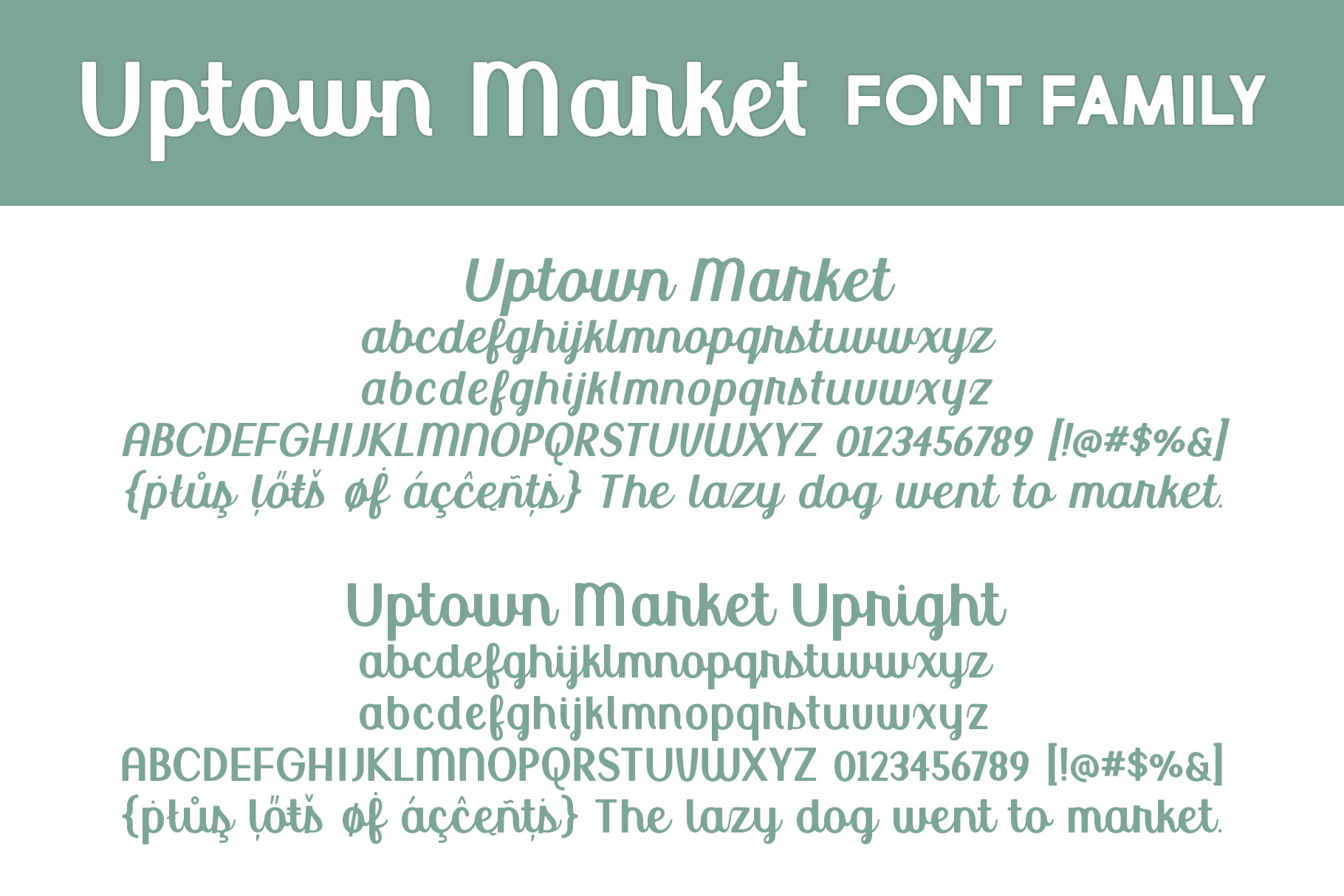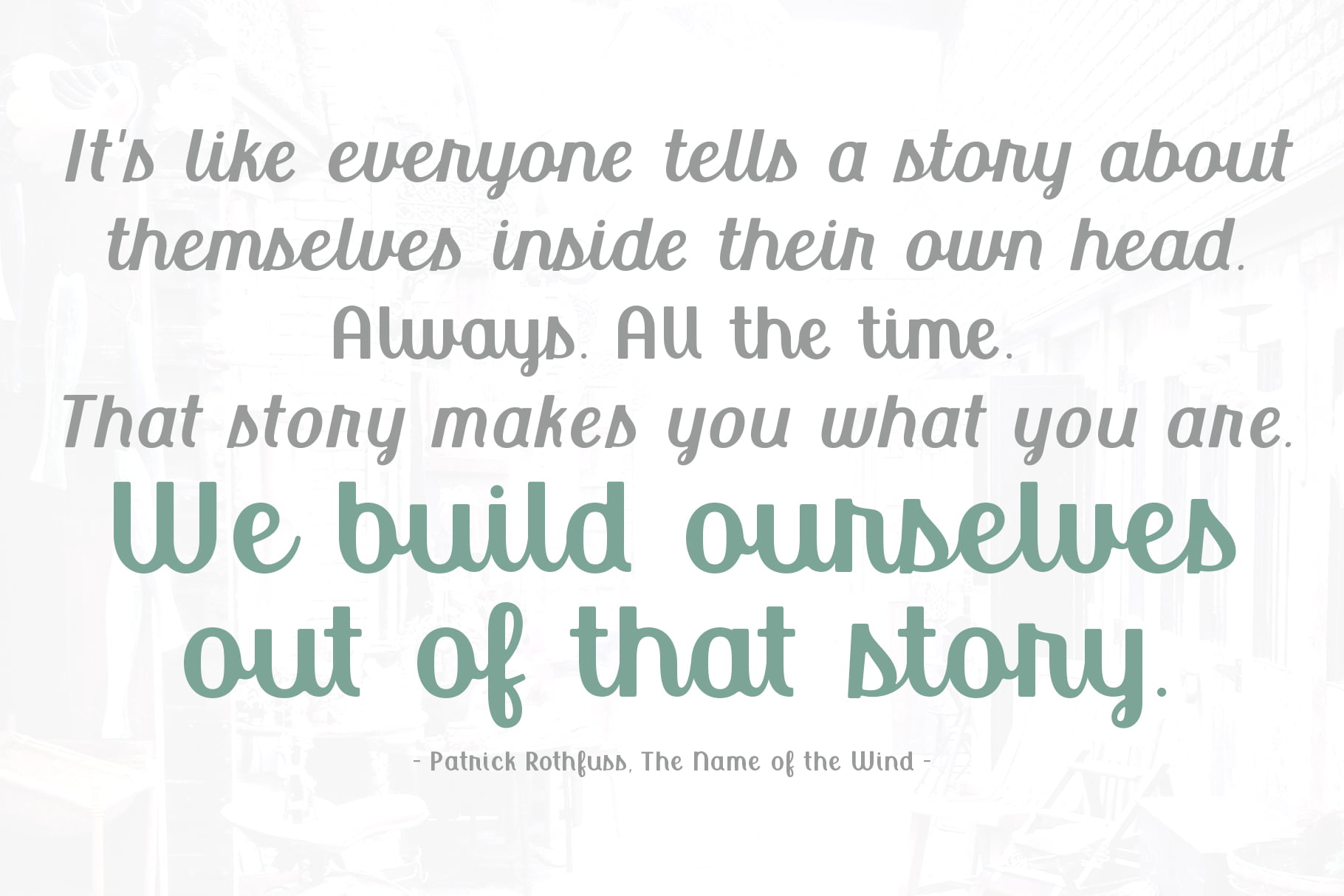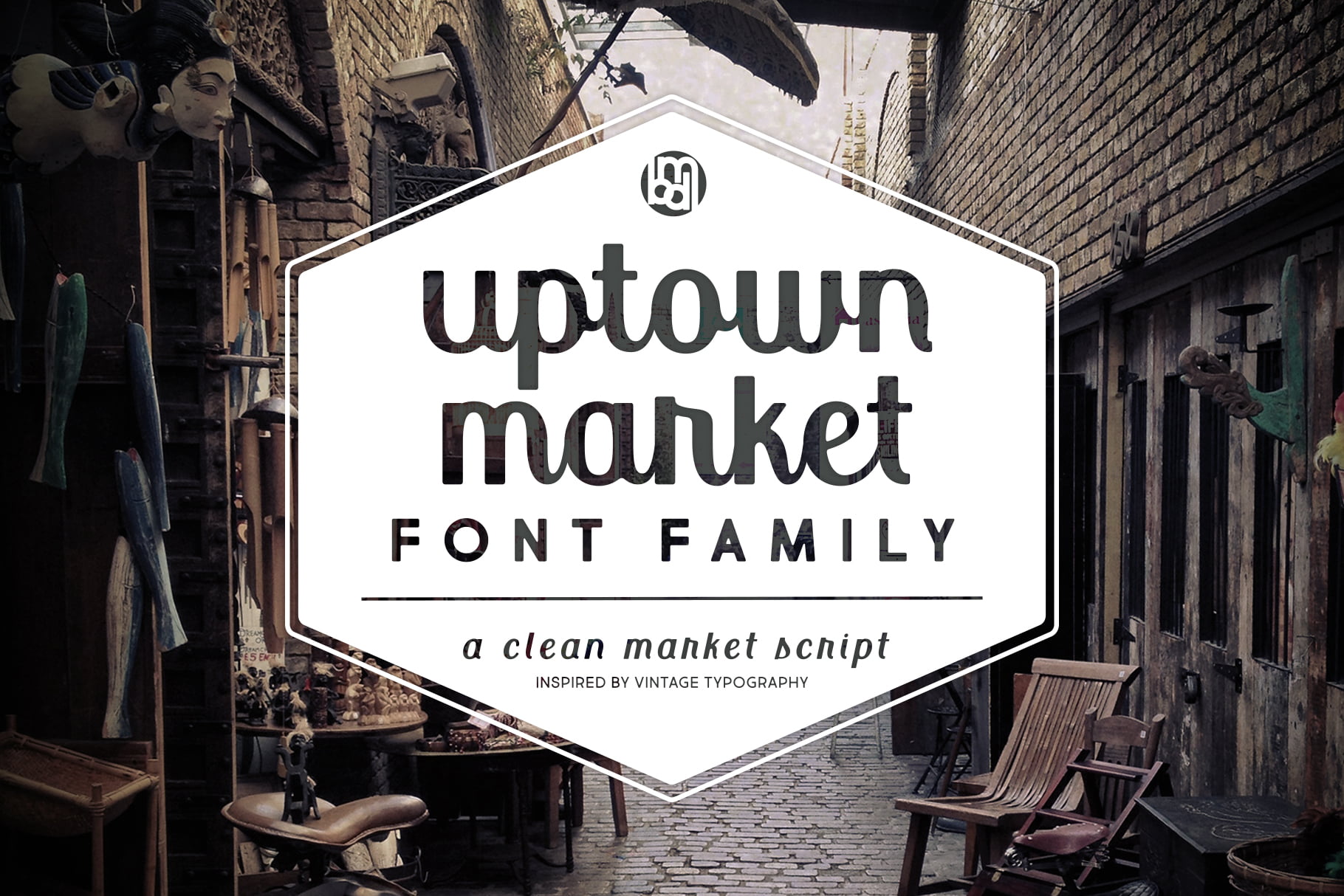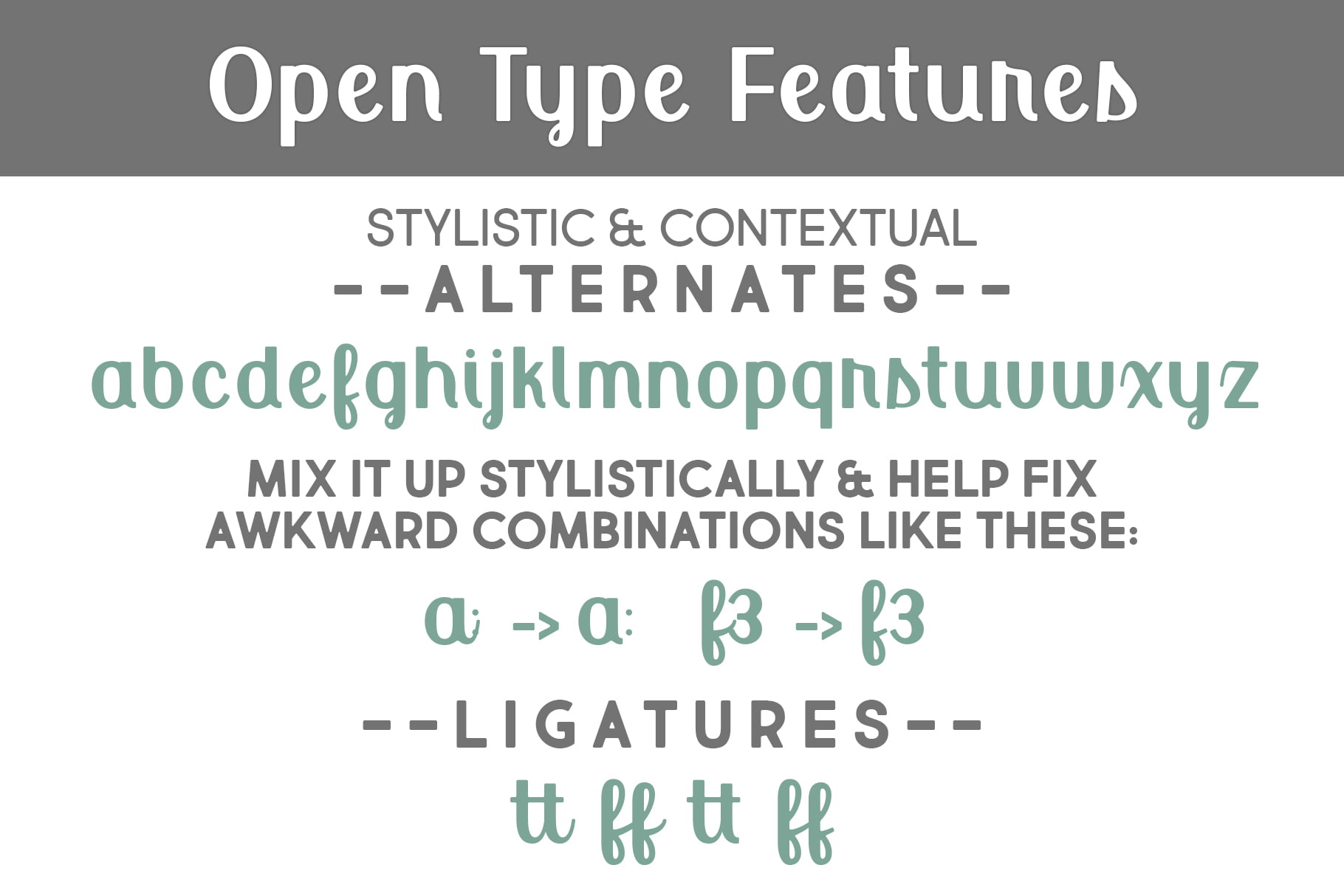
Uptown Market
Uptown Market is a smooth market-style script with non-connecting alternates. Inspired by vintage market scripts and modern trends, this font works great for headlines, bylines and logos.